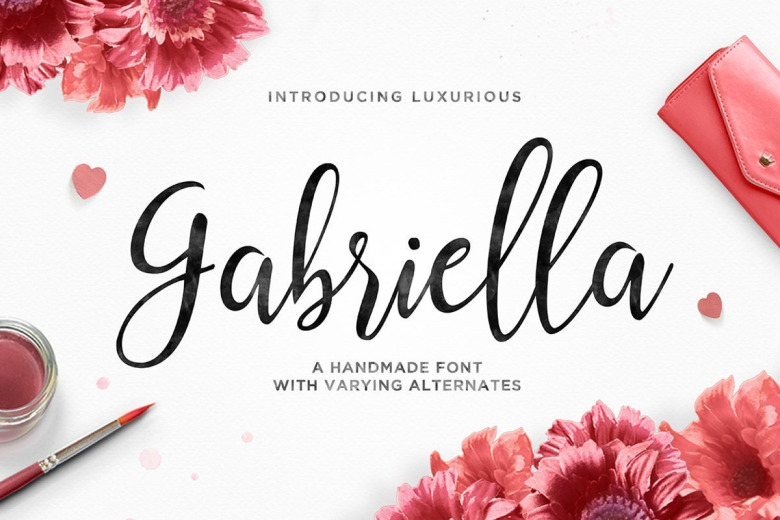
Gabriella Font
Gabriella Script Font is a hand-brushed modern calligraphy script font, created with both pen & brush. Everything in this font was carefully painted on paper, scanned and digitally optimized. This font is equipped with uppercase, lowercase, numbers, punctuation, and several variations on each character including multi-language.